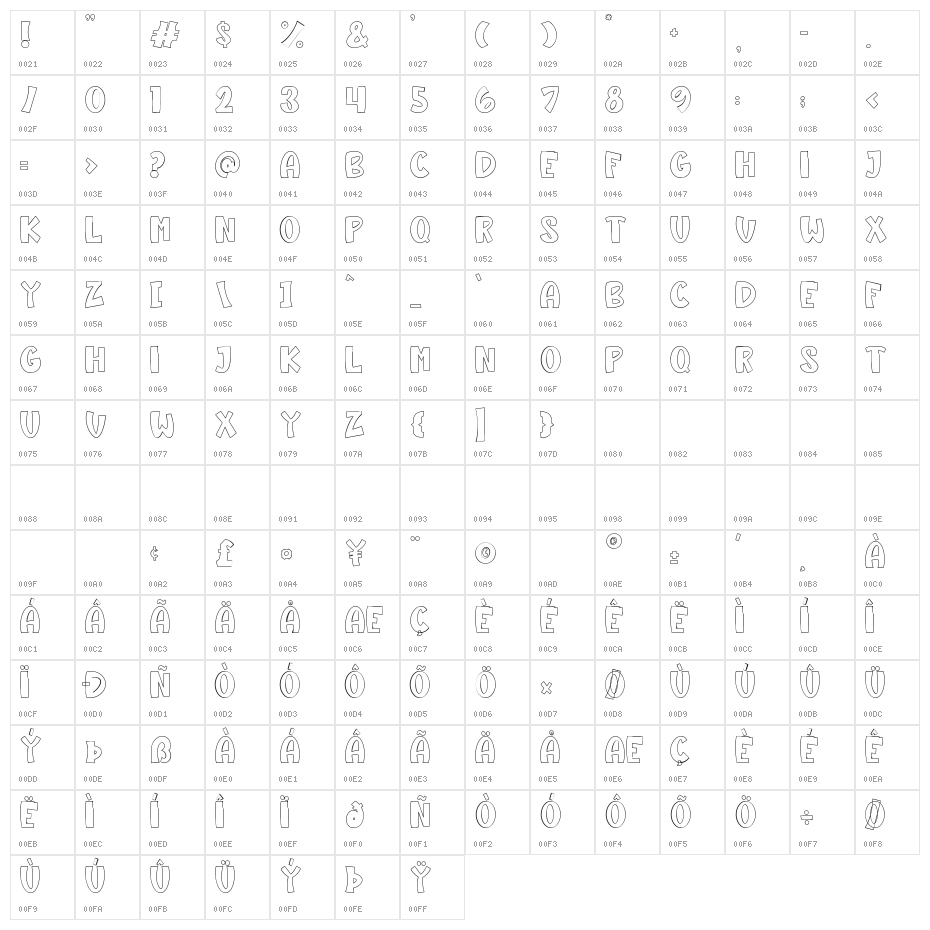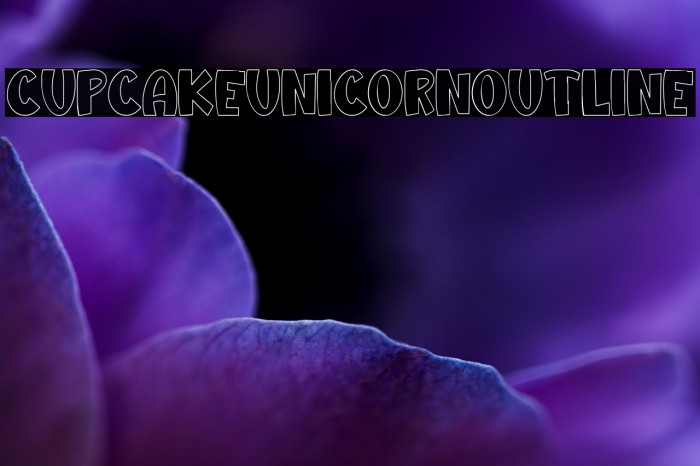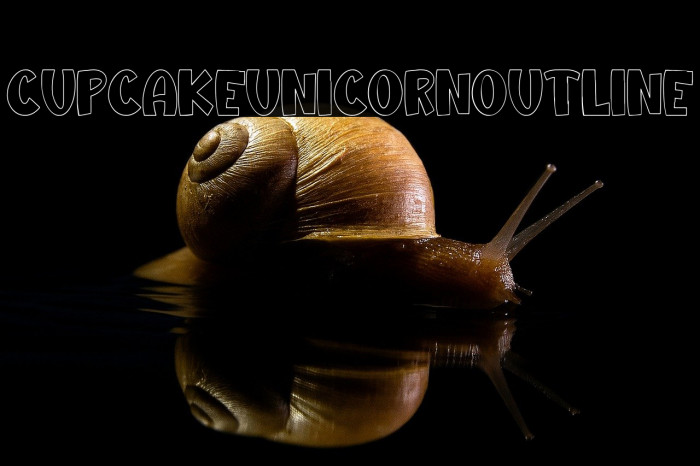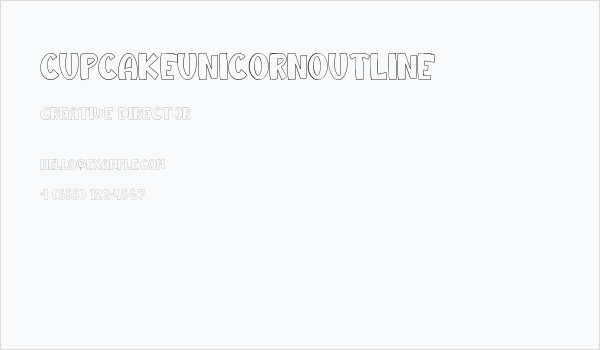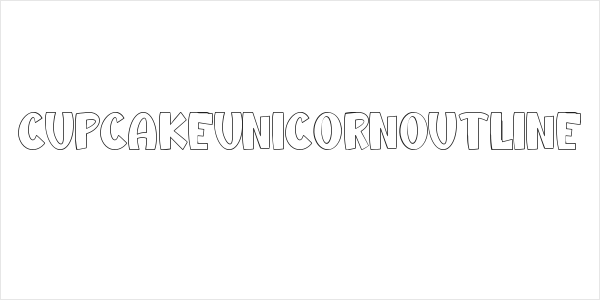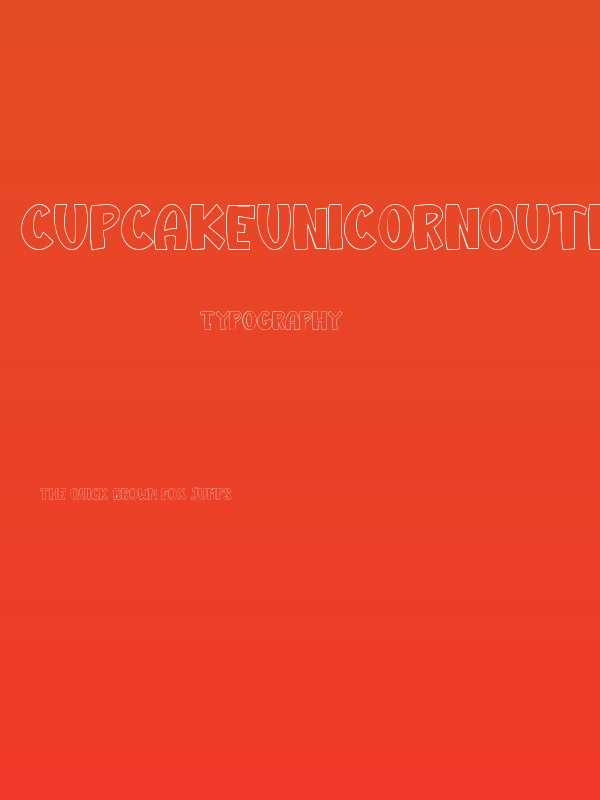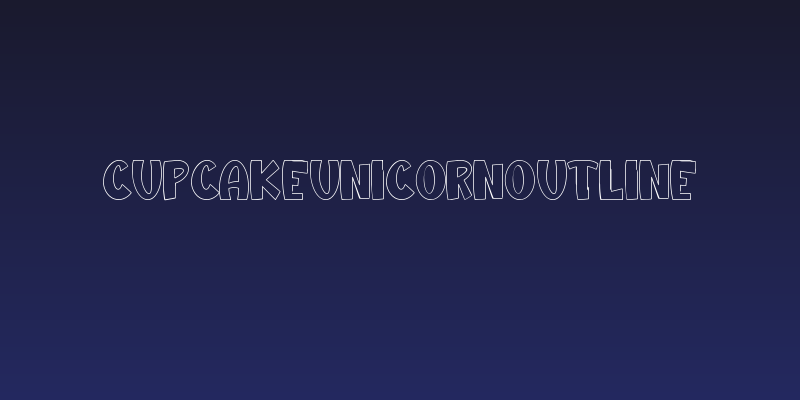
CupcakeUnicornOutline Font
CupcakeUnicornOutline Description
This playful and whimsical font features bold, rounded outlines that give it a cartoonish and fun appearance. The characters are uniformly wide with a consistent stroke width, creating a cohesive and approachable look. The uppercase and lowercase letters maintain a similar style, with slight variations in size and shape to distinguish them. The numbers and special characters are designed to match the overall playful theme, making them suitable for creative and informal projects. The font's outline style allows for easy customization, such as coloring or layering, enhancing its versatility.
| Proposed Projects | Ideal for children's books, party invitations, playful branding, and DIY projects. |